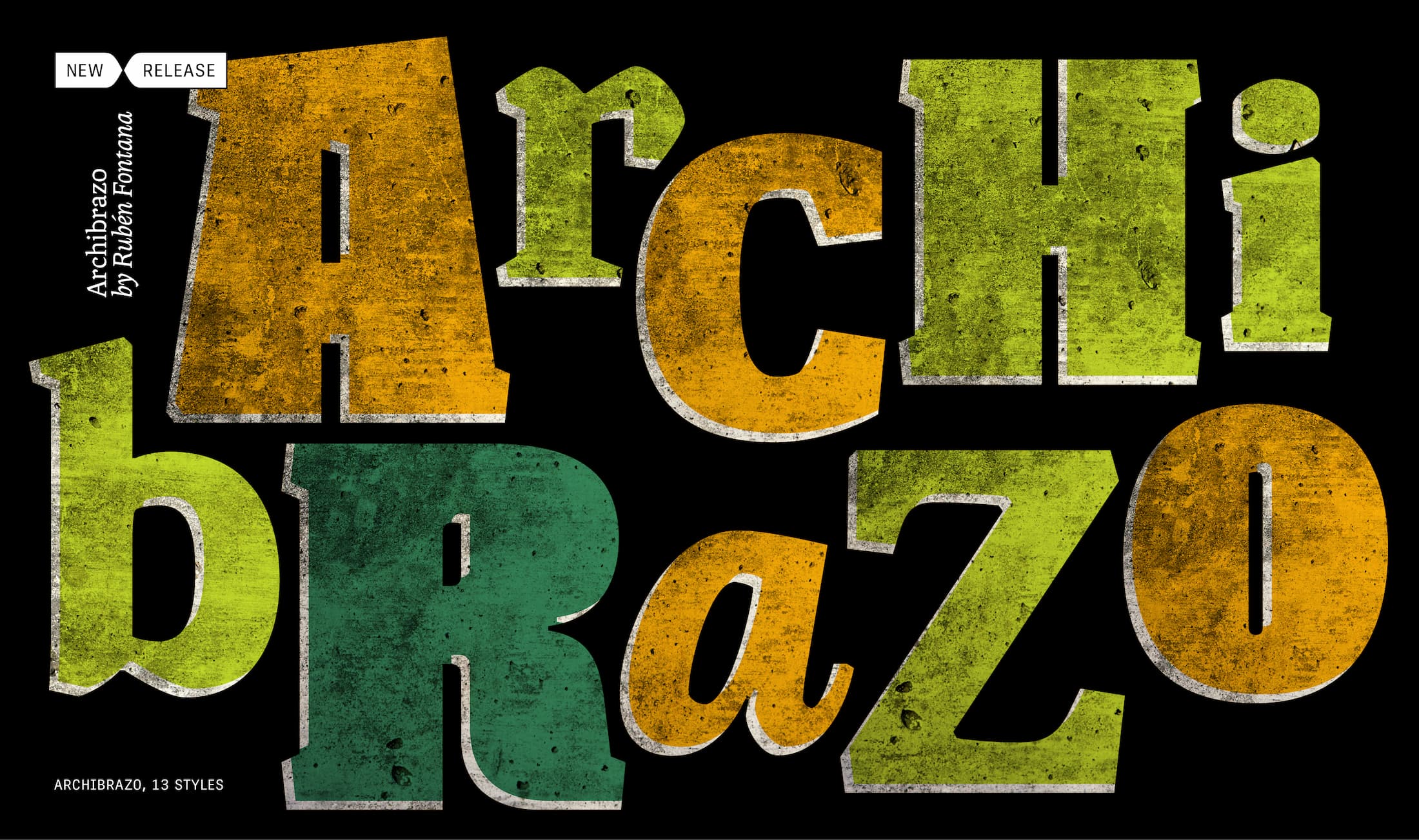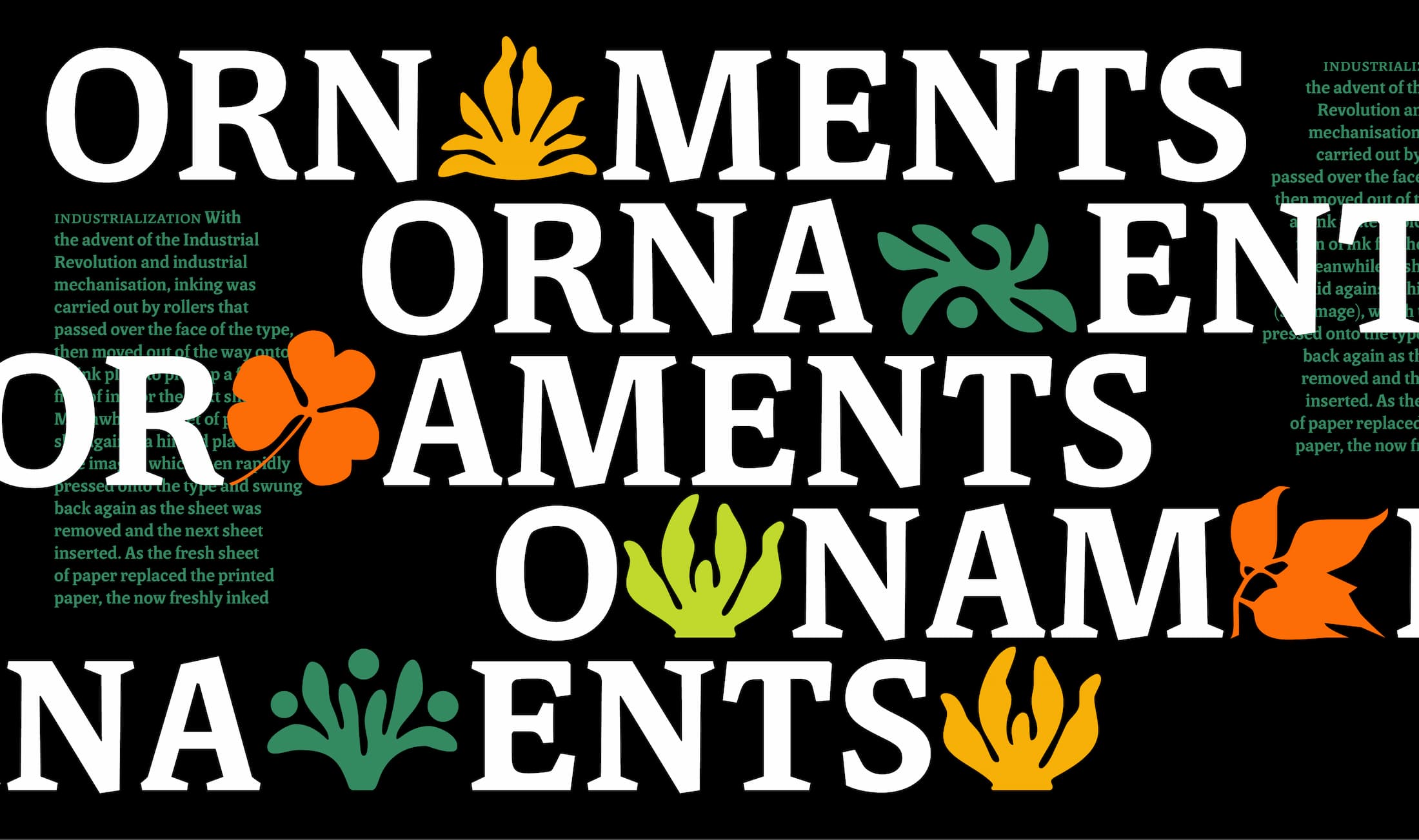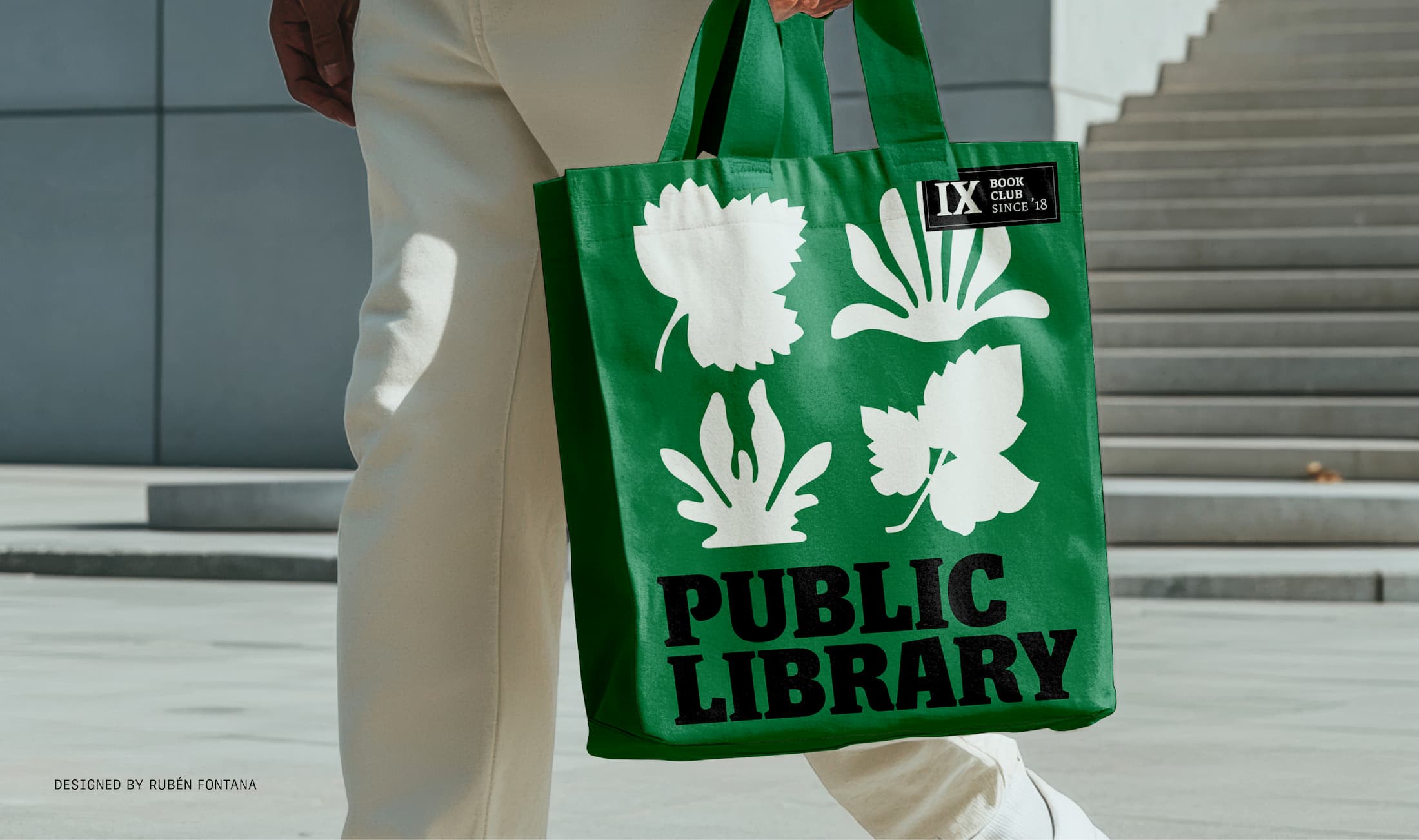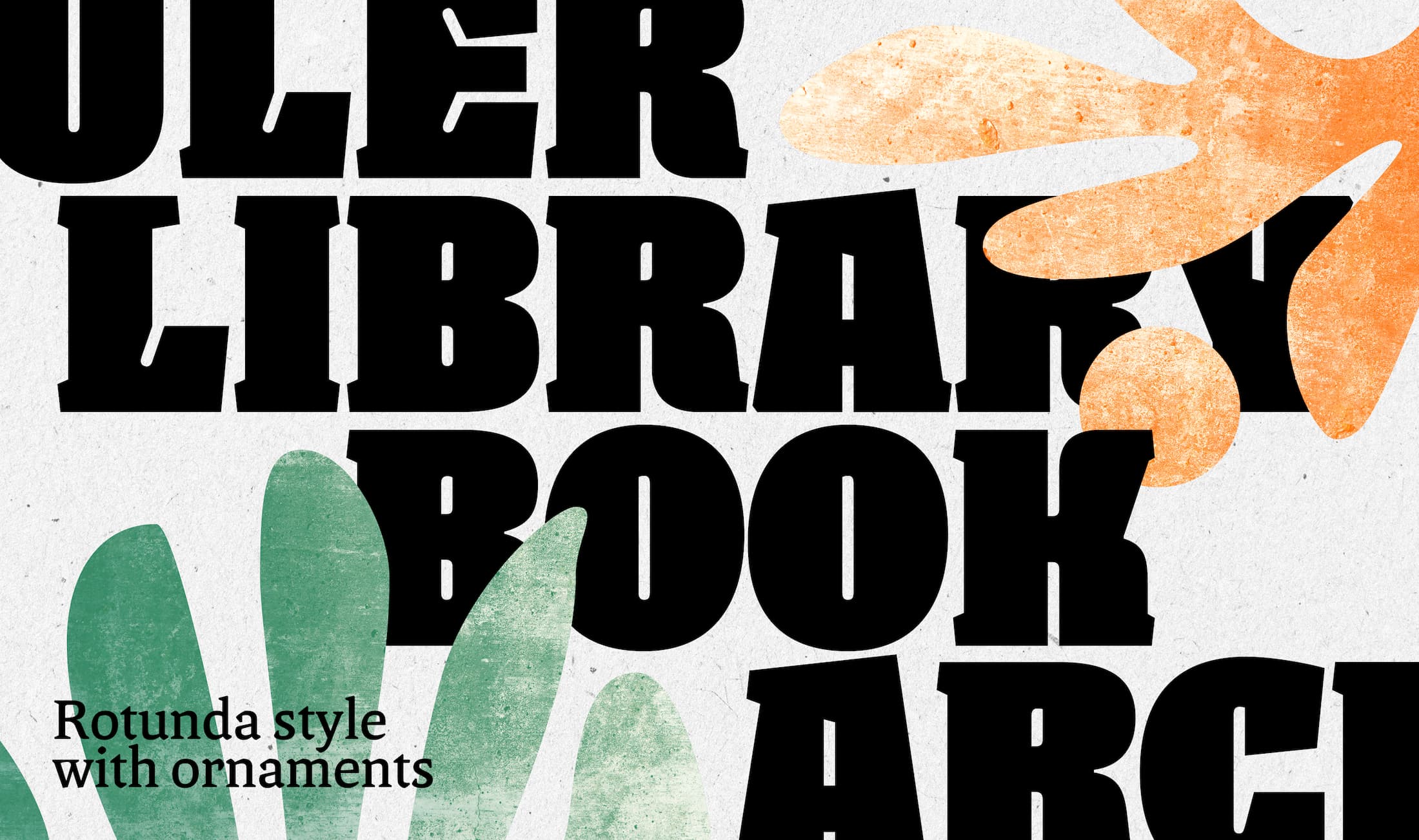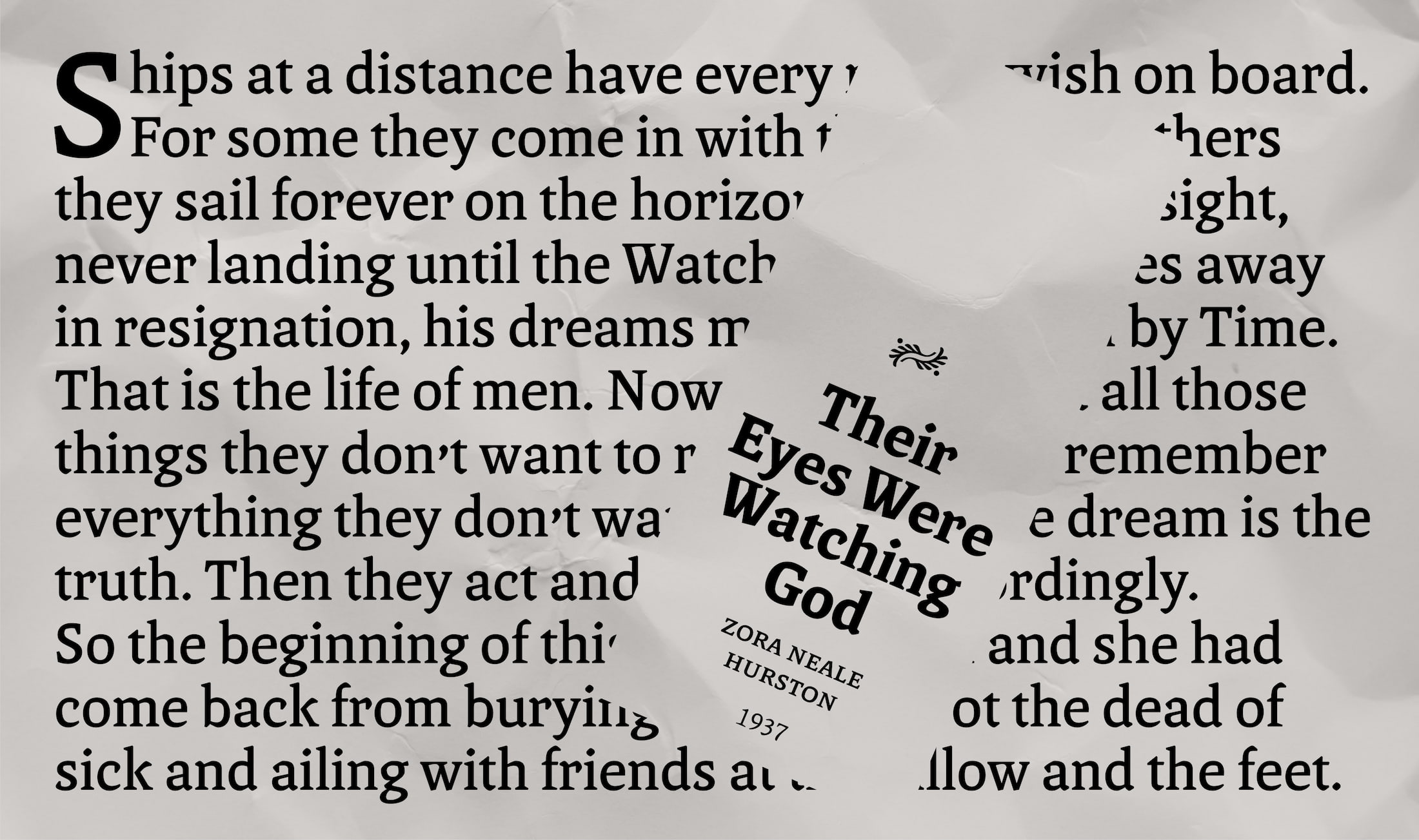
Calligraphy meets sculpture in Rubén Fontana’s new type family
Master type designer Rubén Fontana’s Archibrazo serif family combines calligraphy with sculpture for maximum readability. Its seven weights optimise readability with sculptural wedge serifs and carved countershapes, and the Archibrazo Rotunda weight excels in uses such as titling, branding, and posters.